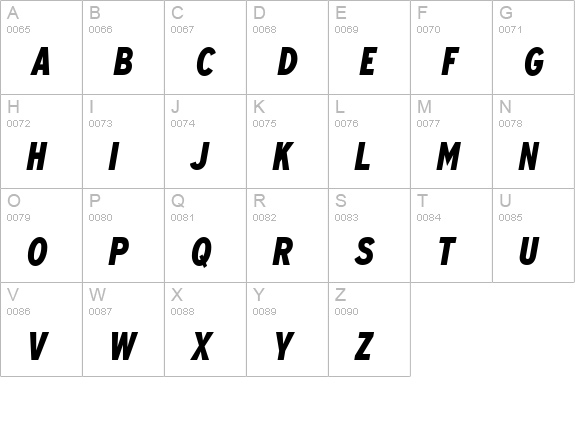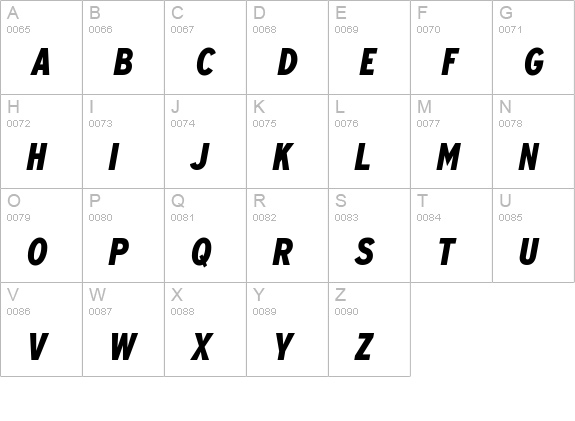
Expressway Cd Xb Italic Font Details
Expressway Cd Xb Italic is a distinctive, italic variant in the Expressway typeface family \xE2\x80\x94 well suited to design and typography projects.
Expressway Cd Xb Italic font is a sleek and modern typeface that exudes sophistication and style. With its italicized design, this font adds a touch of elegance to any project or design. The Expressway Cd Xb Italic font is perfect for creating eye-catching headings, titles, and other text elements that demand attention. What's even better is that this font is available for free download at FontsMarket.com. Whether you're a designer looking to add a unique flair to your work or a business owner seeking to enhance your branding, the Expressway Cd Xb Italic font is a versatile choice that will elevate your design projects. Download it today and see the difference it can make!